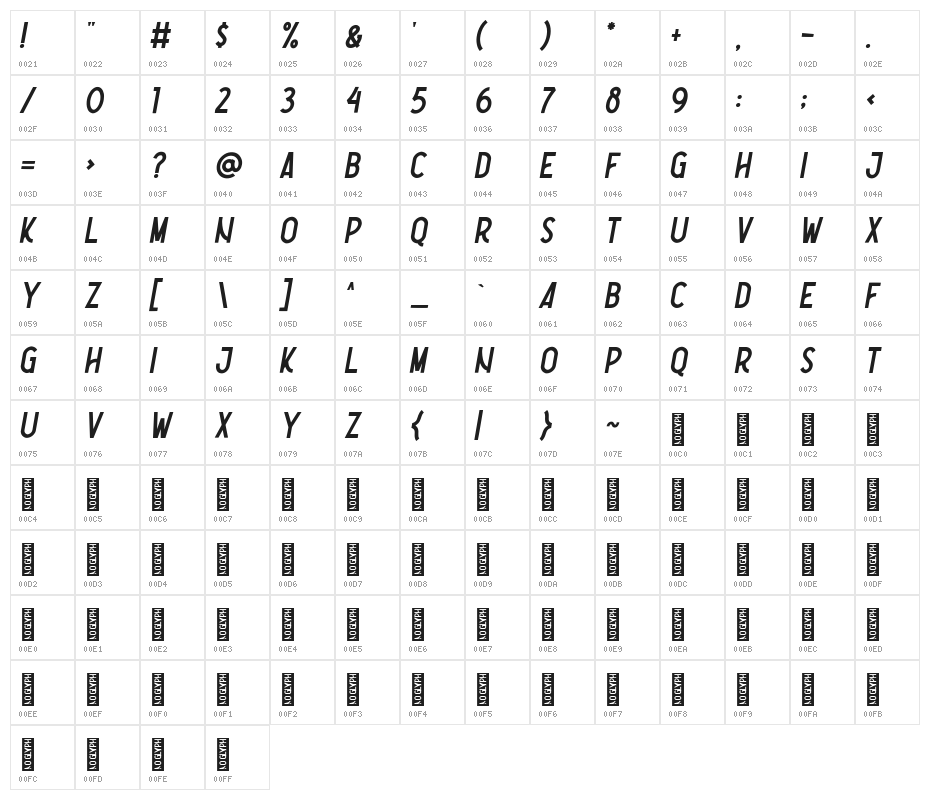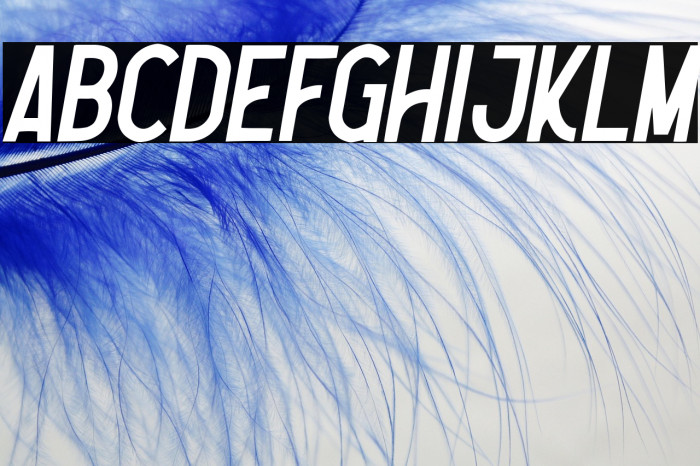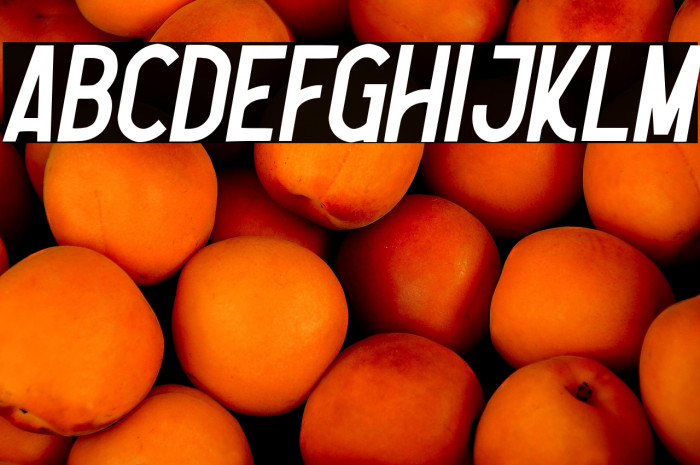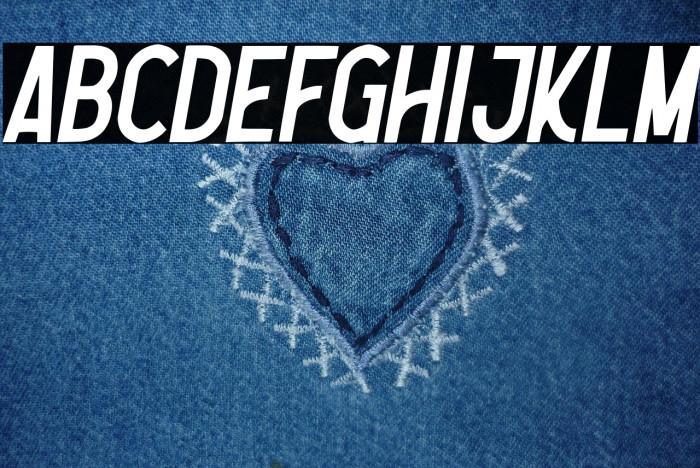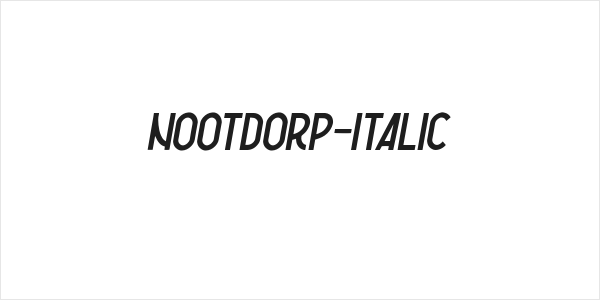
Nootdorp-Italic Font
Nootdorp-Italic Description
This font features a dynamic and energetic italic style, characterized by its forward-leaning letters and bold presence. The uppercase and lowercase letters are designed with a consistent slant, giving the typeface a sense of motion and urgency. The numerals and special characters maintain this slant, ensuring uniformity across all glyphs. The strokes are thick and consistent, providing a strong visual impact. The overall design is clean and modern, making it suitable for various creative applications.